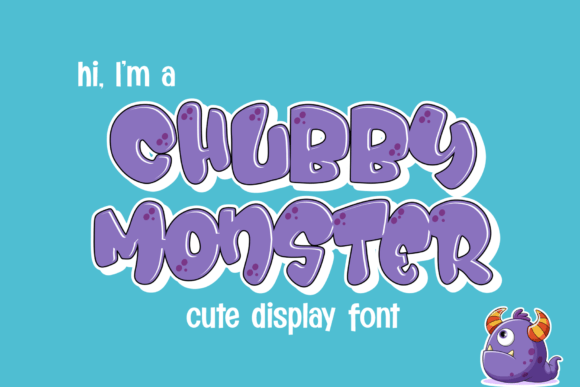
**Chubby Monster Font: The Playful Font for a Joyful Touch**
In the realm of design, where creativity reigns supreme, the Chubby Monster font emerges as a captivating display font, exuding an aura of cuteness and adorability that is simply irresistible. Its chubby and bold characters dance across your screen, evoking a sense of joy and playfulness that is sure to capture the hearts of all who behold it.
Step into a world of endless possibilities, where the Chubby Monster font becomes your trusty companion in conveying the most heartwarming messages. Imagine crafting children's designs that come alive with whimsical charm, toy products that radiate sheer delight, or cute decorations that transform your space into a magical wonderland. Let your imagination soar as you explore the boundless potential of the Chubby Monster font, creating designs that spark smiles and ignite imaginations.
With its cheerful and inviting appearance, the Chubby Monster font is the perfect choice for adding a touch of lightheartedness to your flyers on Canva. Create promotional materials that pop with personality, captivating your audience with clever designs that leave a lasting impression. Whether you're promoting a special event, showcasing your latest products, or simply spreading joy, the Chubby Monster font is the perfect tool to make your flyers irresistible.
Dive into a world of creativity and let the Chubby Monster font guide you towards design brilliance. Its playful nature and endless versatility make it an invaluable asset for designers of all levels. Experience the joy of creating designs that resonate with your audience, leaving them with a lingering smile and a desire for more.
**Unlock the Power of Chubby Monster Font Today and Unleash Your Creative Magic!**